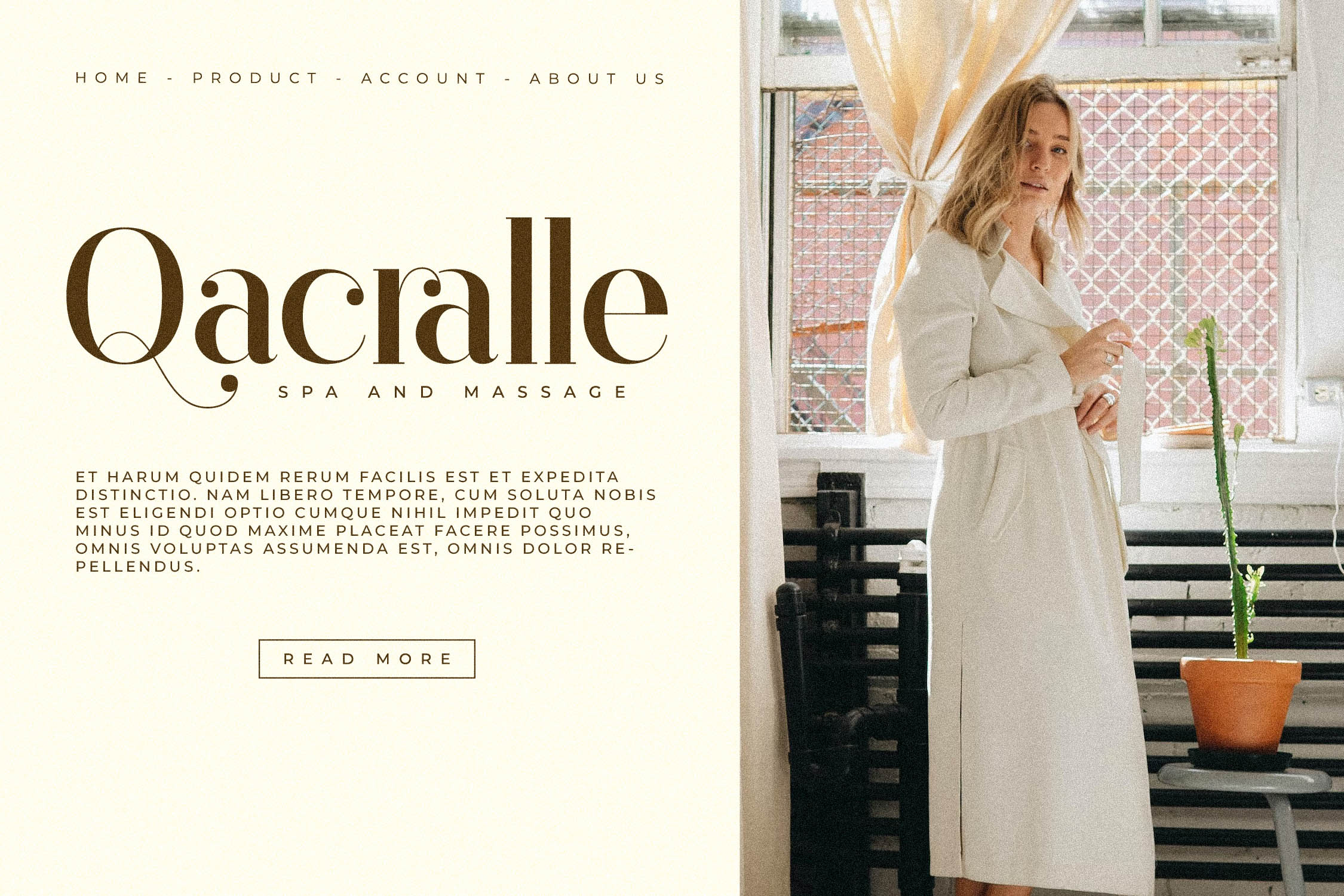
Gagisra Rigade Font
Gagisra Rigade Serif Font is a serif modern and classic typeface that has own unique style & modern look. This typeface is perfect for an elegant & luxury logo, book or movie title design, fashion brand, magazine, clothes, lettering, quotes, and so much more.